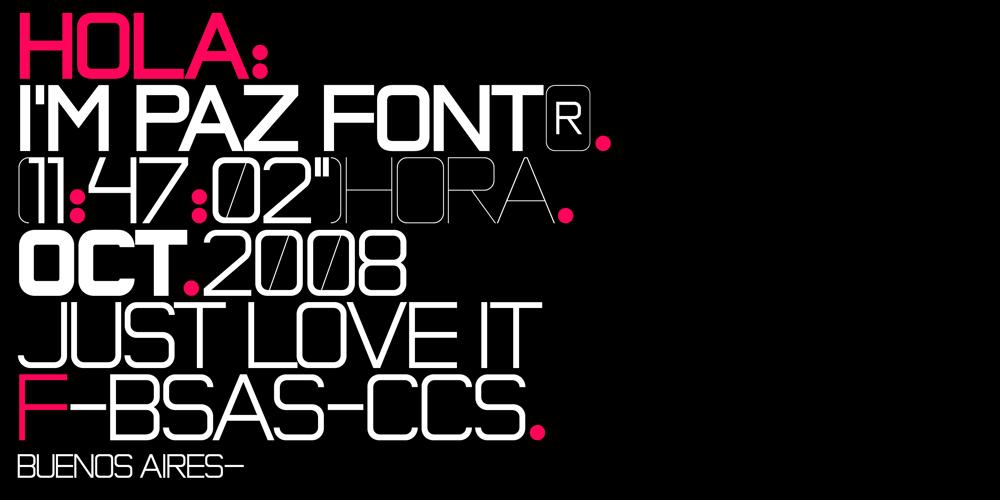
Paz Font Family was designed by Alejandro Paul, Ariel Di Lisio and published by Sudtipos. Paz contains 4 styles and family package options. Paz, a squarish 4-weight industrial family, ranging from extreme hairline to black. It is ideal for editorial headlines where type plays a major role in the overall design. The fonts were designed by Ariel Di Lisio and digitized by Alejandro Paul.